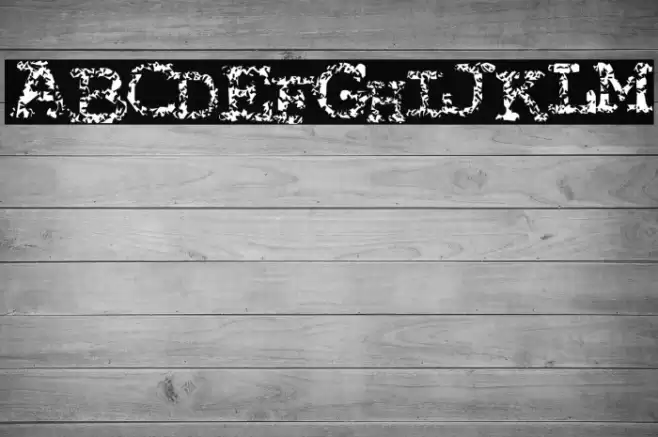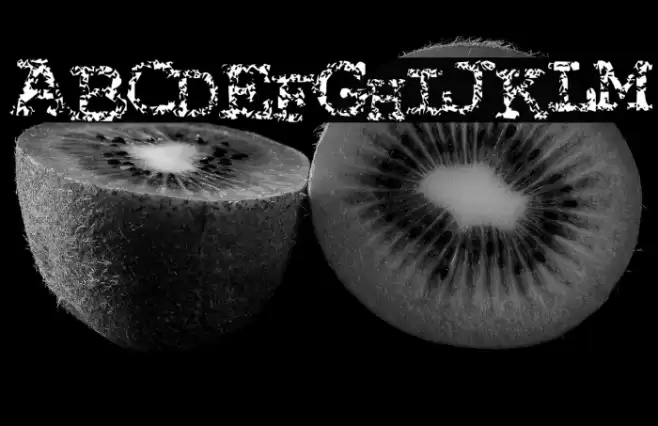
Typewriter from hell Font
Typewriter from hell Description
This font features a chaotic and distressed aesthetic, reminiscent of a typewriter gone awry. Each character is heavily textured with irregular, jagged edges, giving it a grunge-like appearance. The uppercase and lowercase letters maintain a consistent style, with the uppercase being slightly larger and more pronounced. Numbers and special characters follow the same distressed pattern, making the font cohesive across all elements. The overall look is bold and eye-catching, suitable for projects that require a dramatic and unconventional typeface.
A distressed, grunge-style font with a chaotic typewriter aesthetic from Uncategorized fonts.
- Font: Typewriter from hell
- Proposed Projects: Ideal for horror-themed designs, edgy posters, album covers, and any project needing a bold, unconventional typeface.
Typewriter from hell UPPERCASE
Typewriter from hell LOWERCASE
Typewriter from hell OTHER CHARS